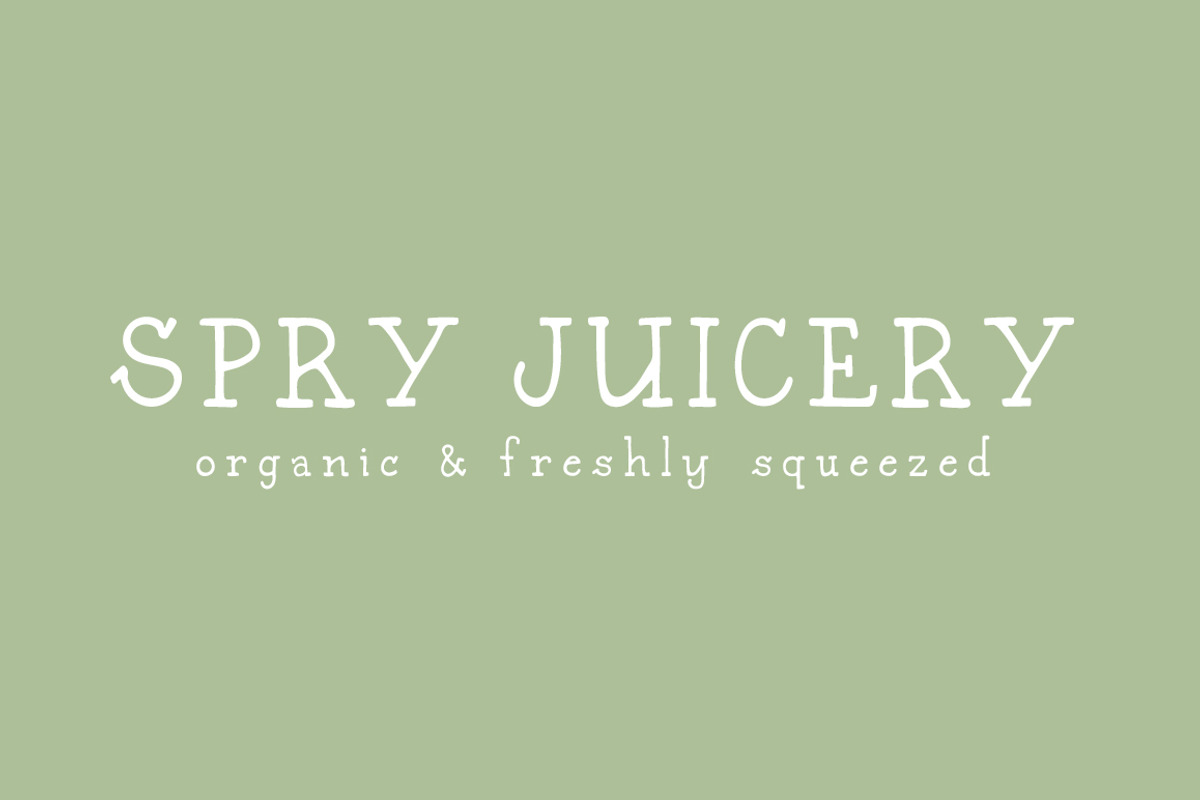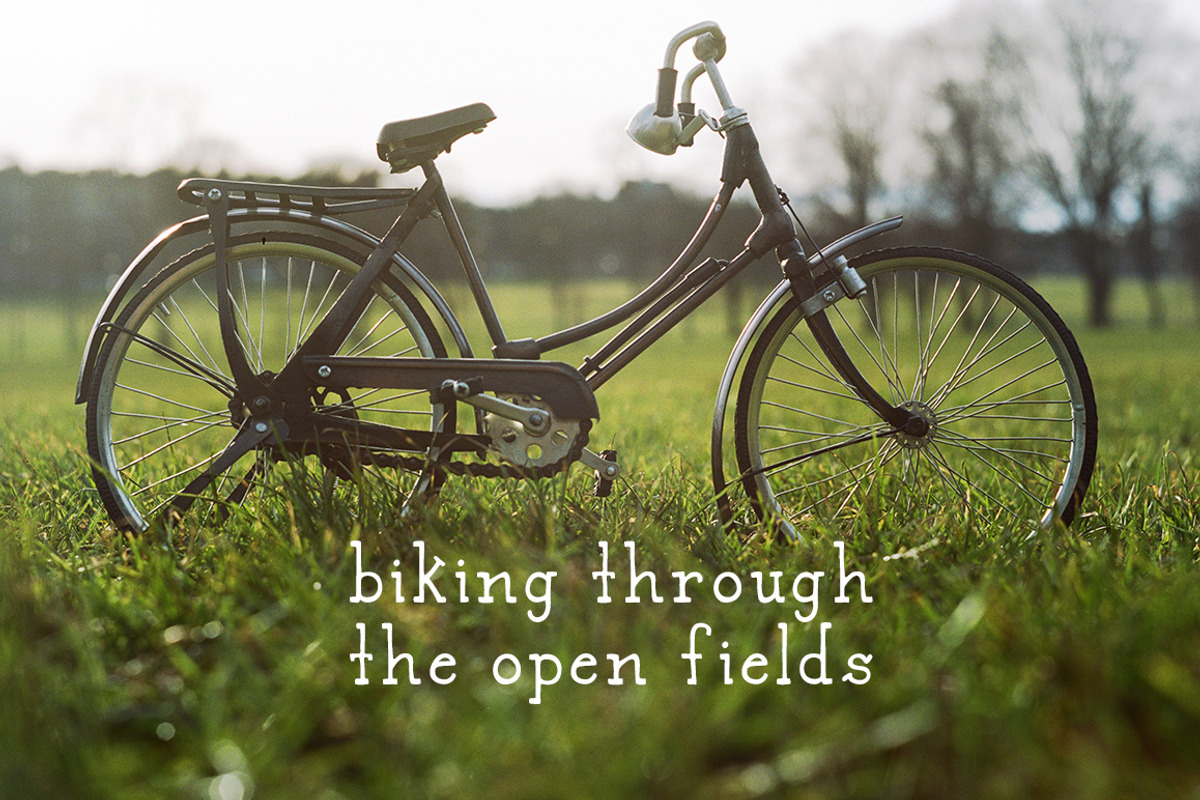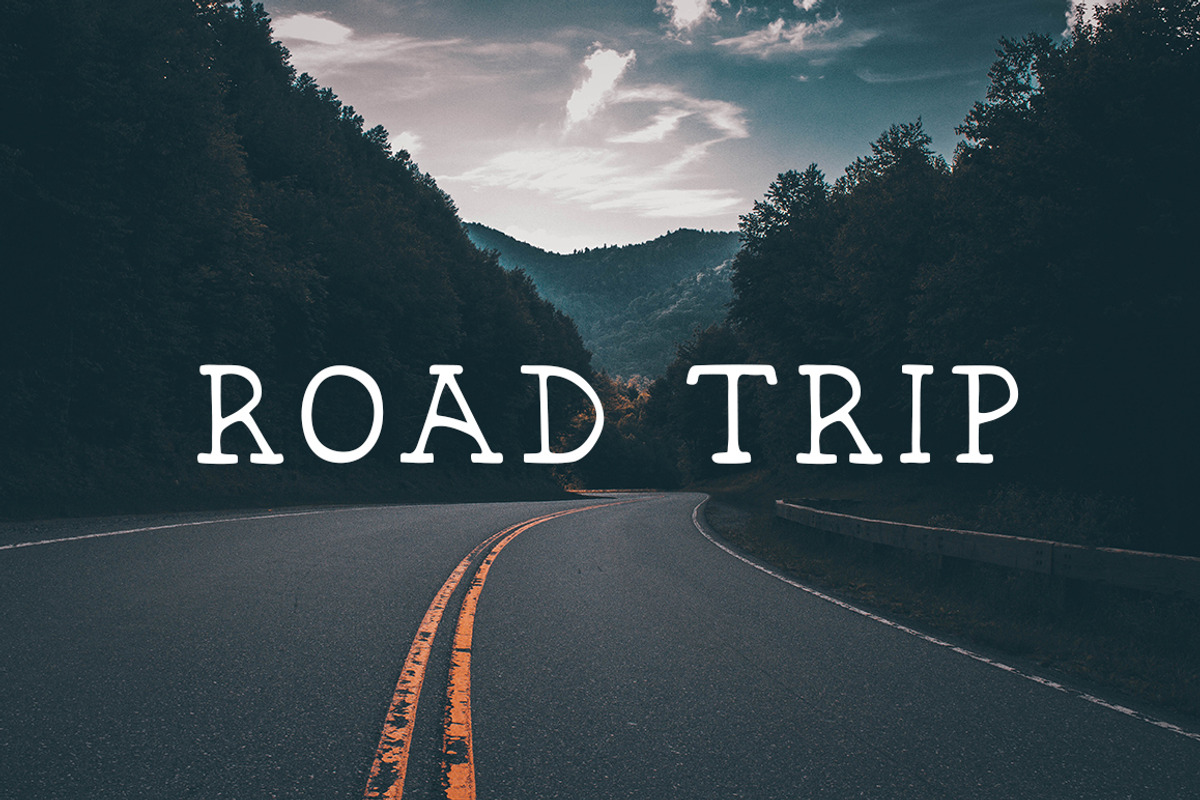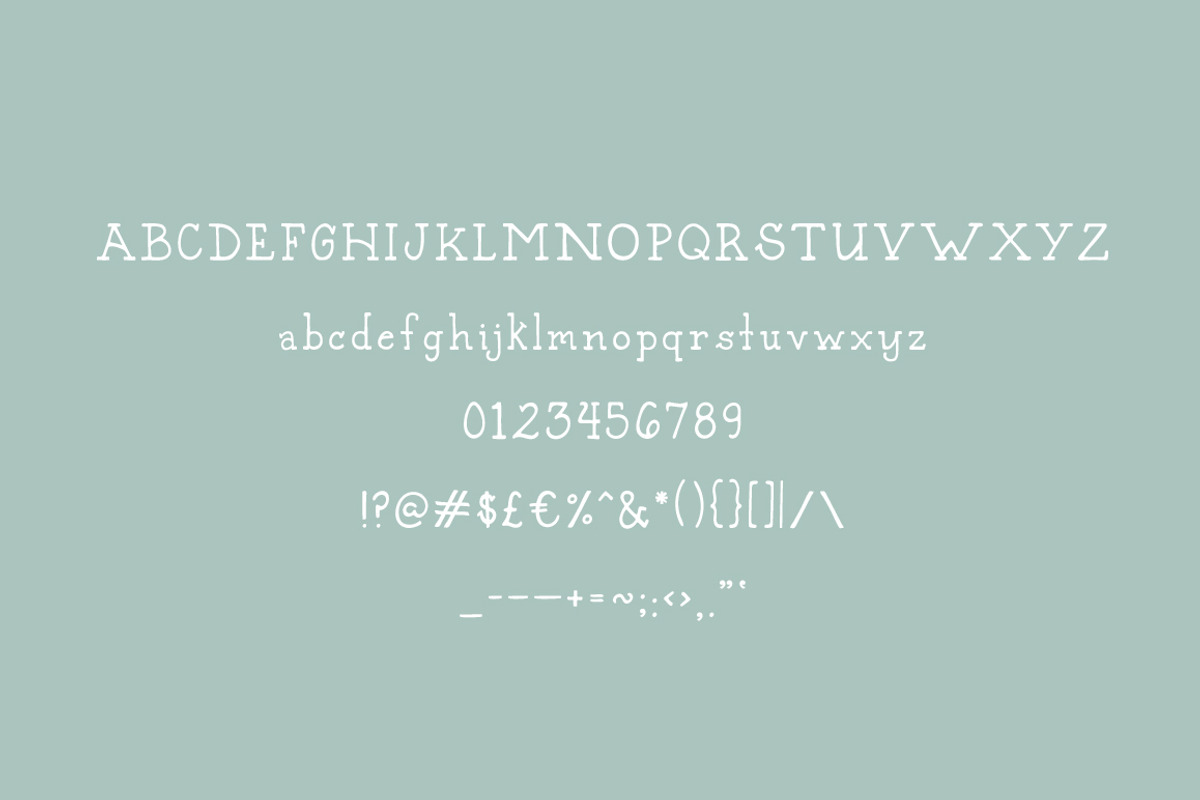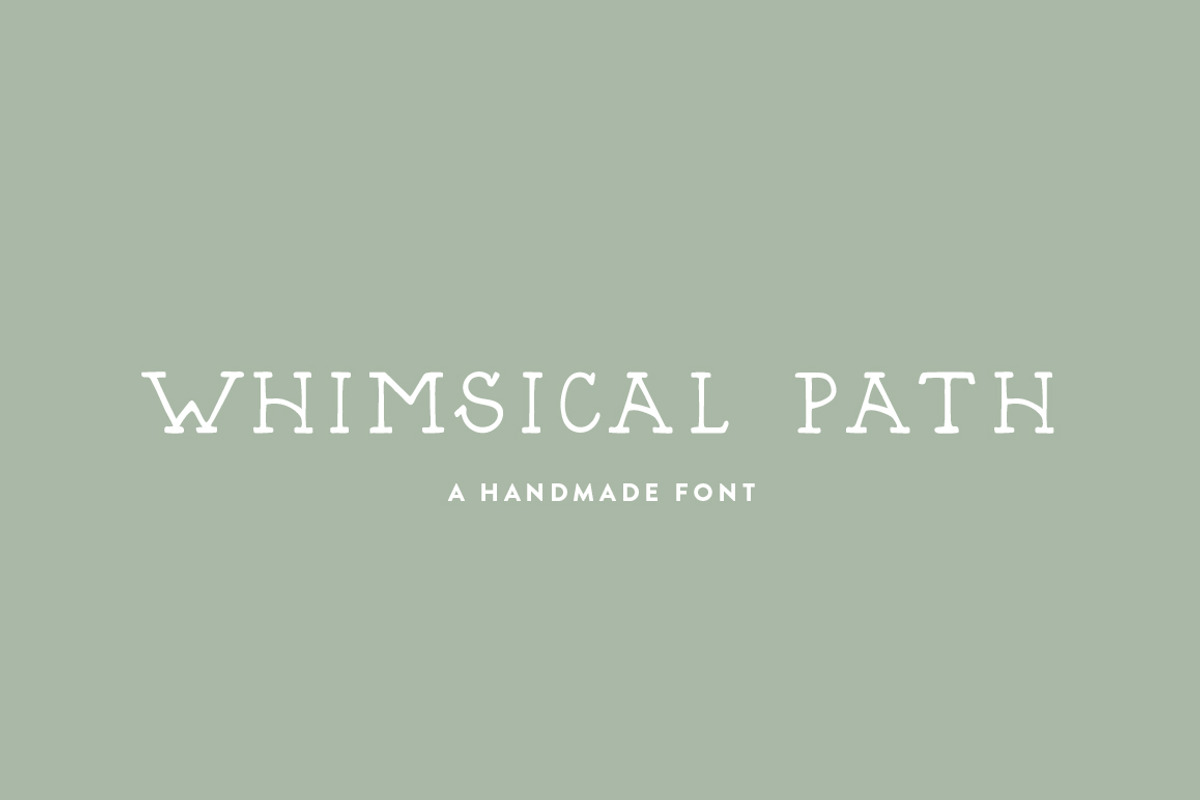
Whimsical Path: A Hand-Lettered Font
Whimsical Path: A Hand-Lettered Font by Britt Fabello is a font selected for branding, posters, packaging, typography.
- Included characters: Uppercase alphabet A-Z Lowercase alphabet a-z Numbers 0-9 Some punctuation Please refer to the images for the full list
- Whimsical Path Regular
Why Whimsical Path: A Hand-Lettered Font is worth a look
Whimsical Path: A Hand-Lettered Font by Britt Fabello fits naturally into Branding, posters, packaging, typography.